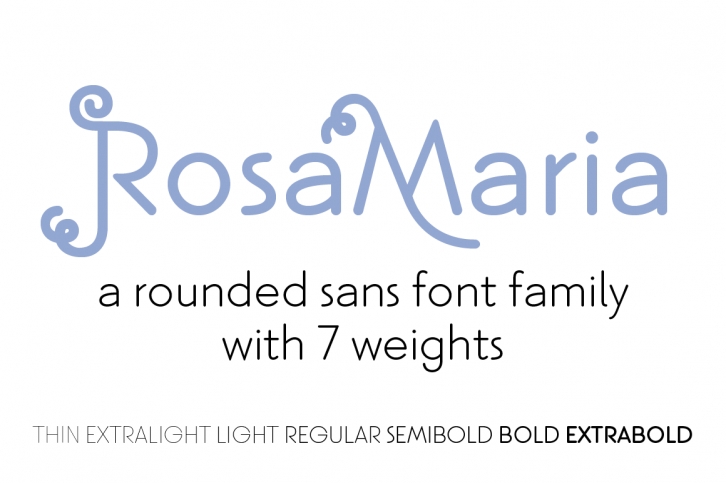
Rosa Maria is a great font that was designed by Genilson Santos. Imagine the amount of combinations you can create using this font! The archive is 5.59 MB and it was released on January 26, 2017. Rosa Maria looks beautiful on wedding invitations, greeting cards, logos, posters, labels, t-shirt designs, logos, business cards and is perfect for use in ink or watercolor works, fashion, magazines, packaging and food menus, children's books and more!